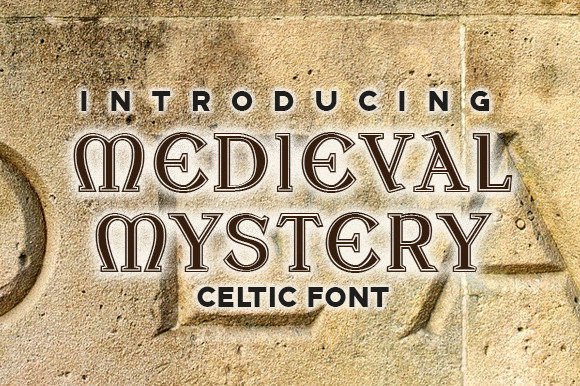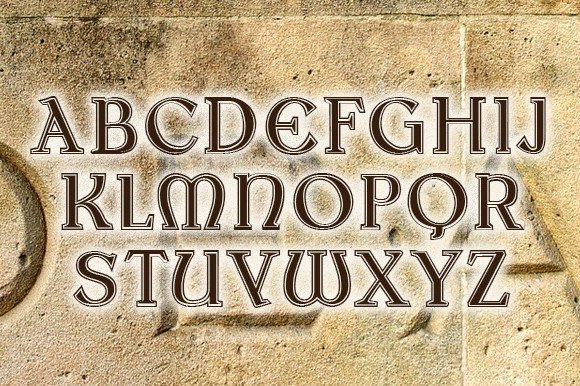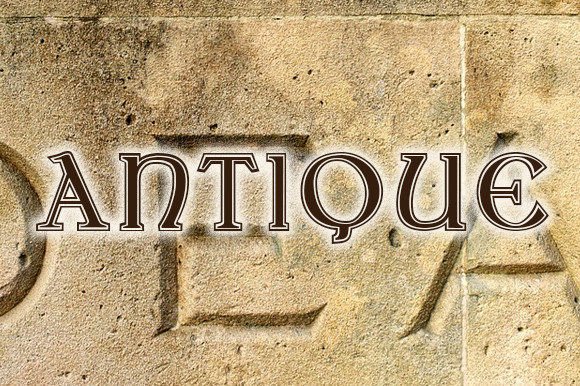
Medieval Mystery Font
About the Medieval Mystery Font
Presenting Medieval Mystery Font, a unique and stylish typeface that will make your work stand out. Medieval Mystery is a bold and thick lettered blackletter and Celtic font. Add it confidently to your projects, and you will love the results.
Medieval Mystery excels in headline applications, short impactful statements, and branding projects requiring a strong, authoritative presence. Its bold forms are ideal for posters, logos, and packaging designs where a touch of historical flair is desired. However, its highly decorative nature makes it unsuitable for body text or UI elements; readability suffers in smaller sizes or continuous paragraphs.
The font’s personality is undeniably bold and mysterious, conveying a sense of history and intrigue. It projects confidence and a touch of the dramatic.
Pairing Medieval Mystery with a clean sans-serif like Futura or a modern geometric font will create a striking contrast, balancing its ornate style. For a softer approach, a classic serif such as Garamond could provide elegant counterpoint. Avoid pairing it with other highly decorative fonts, as this will result in visual clutter.
Medieval Mystery Font Usage Examples
Medieval Mystery Font Example